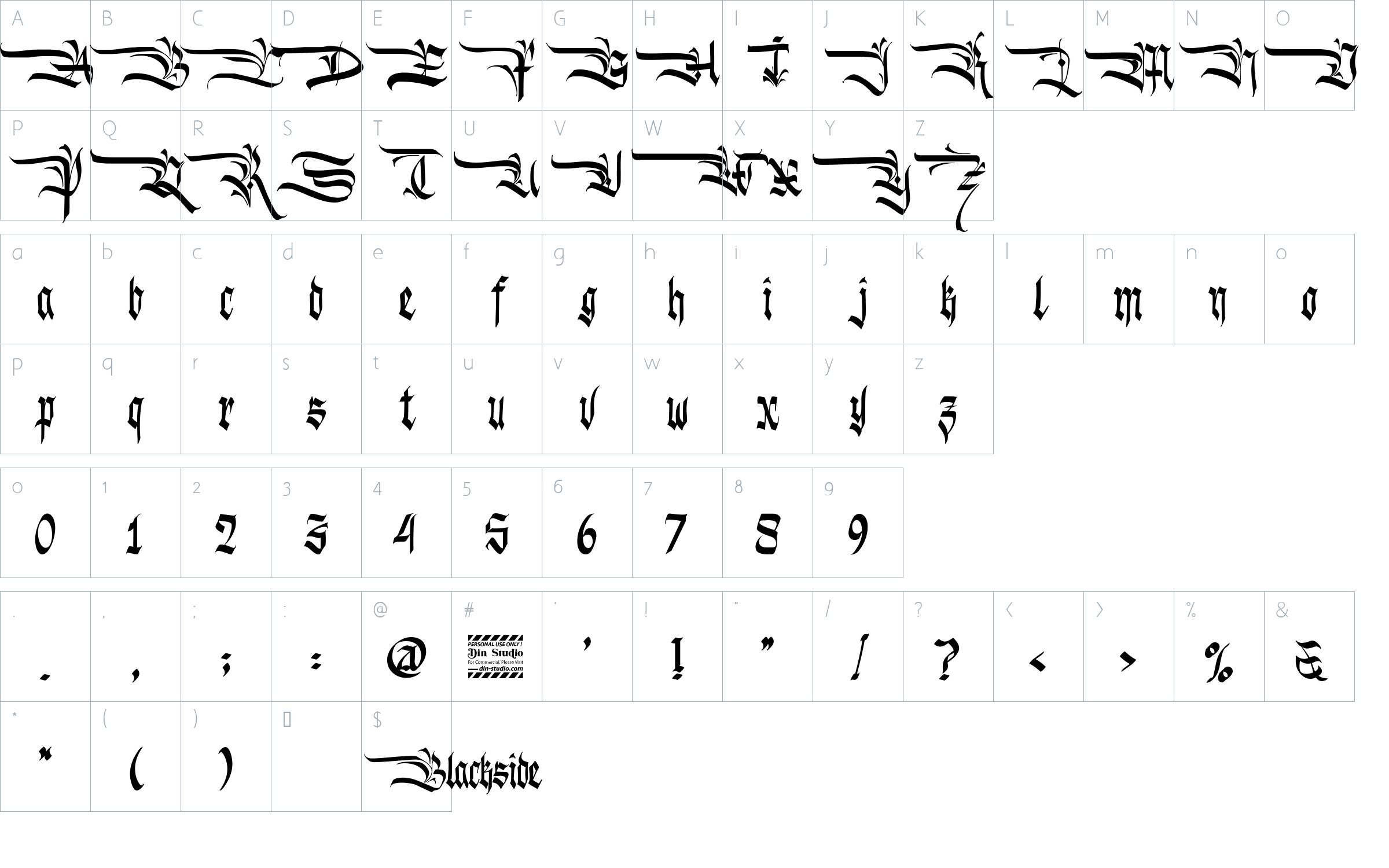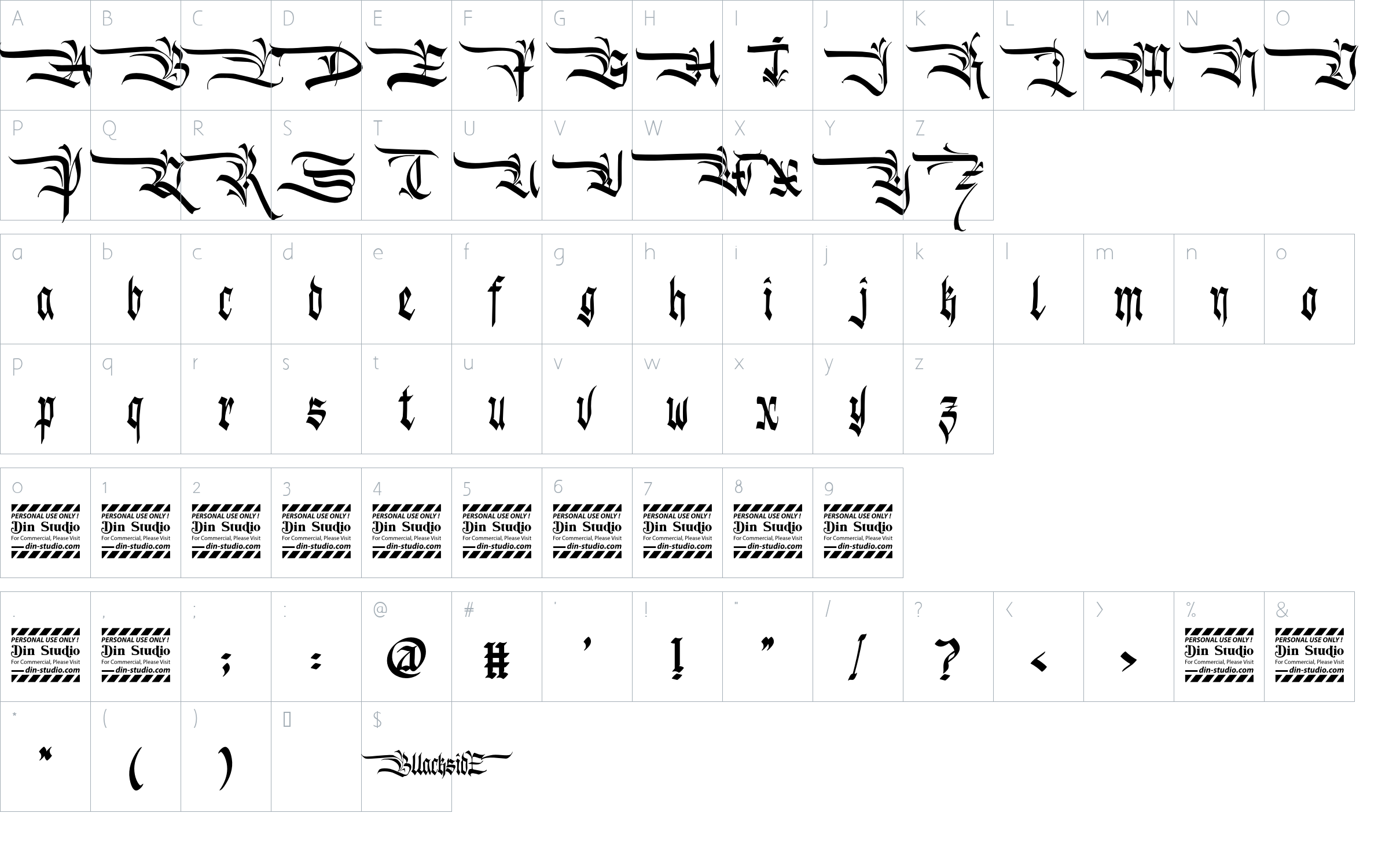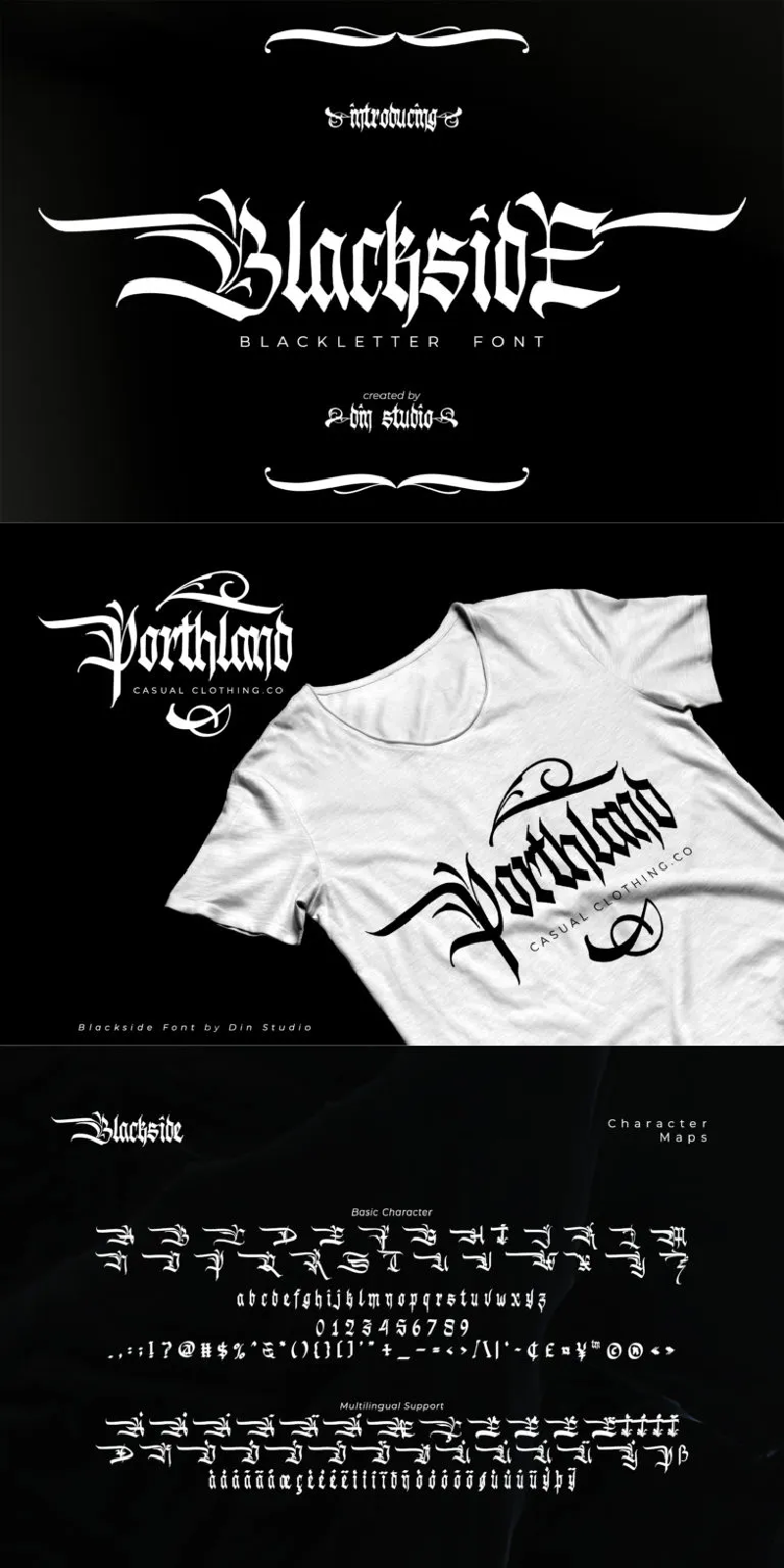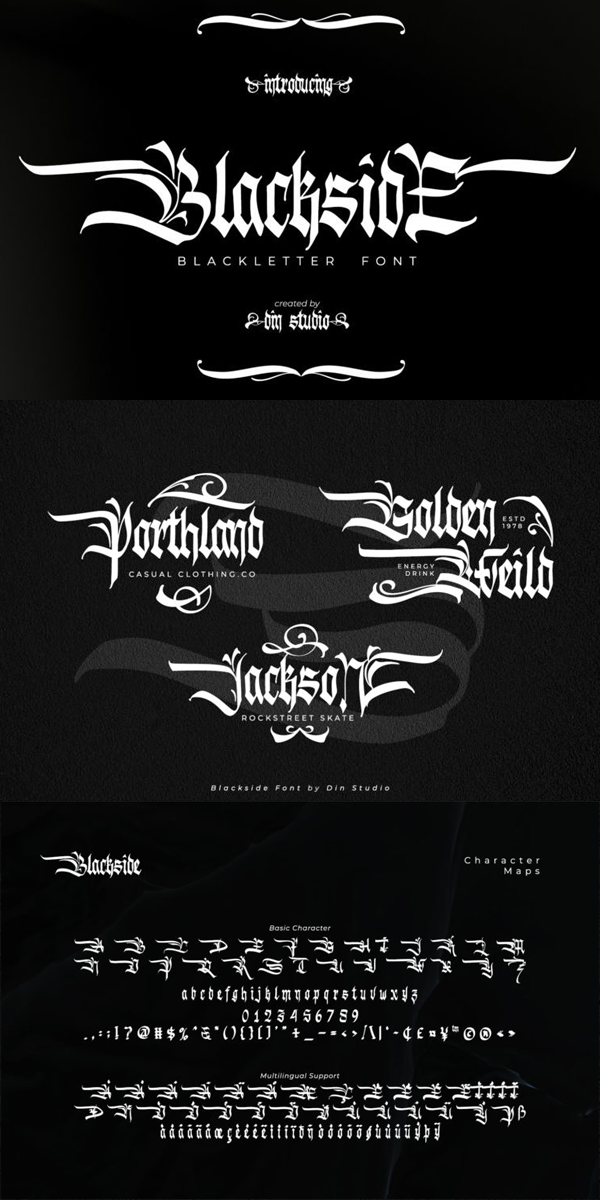
Blackside Font
About Blackside
Blackside, a bold and authentic blackletter font suitable for any branding projects, like logos, t-shirt printings, etc. which is outstanding in a wide range of contexts. See the previews above to get some inspiration on how you can use them. Happy designing!